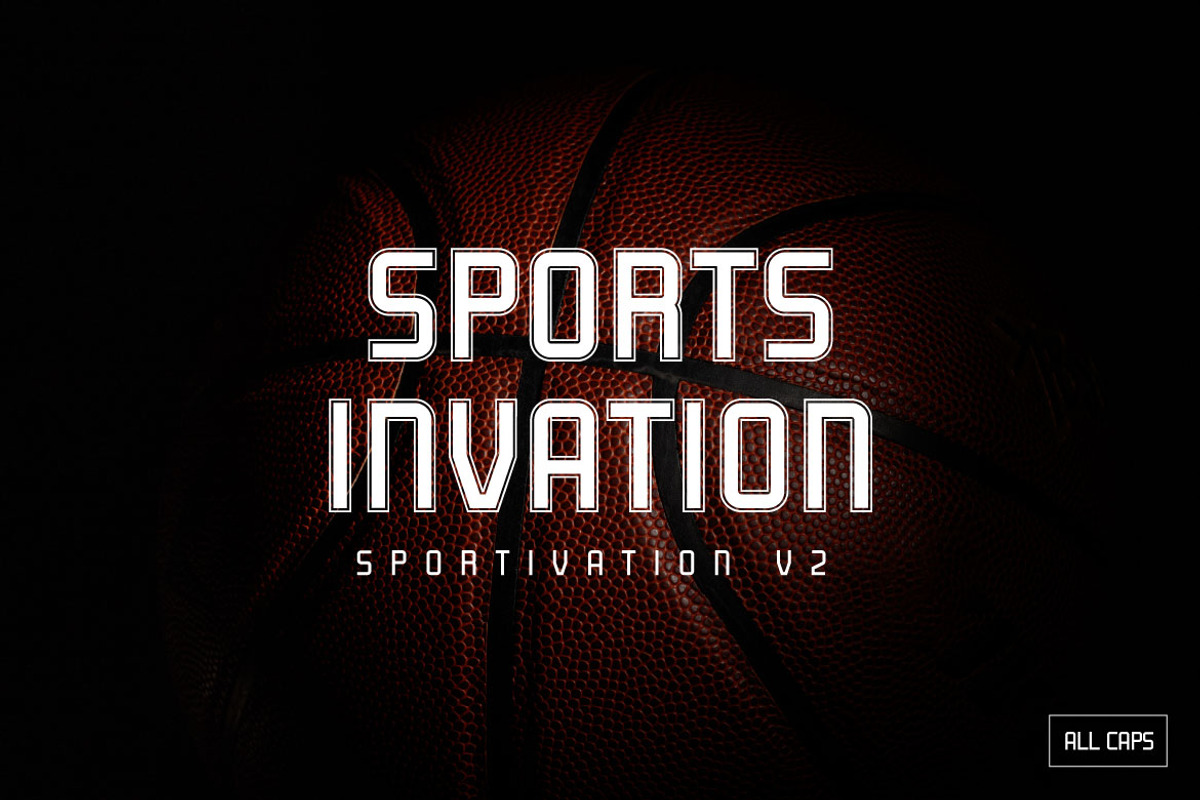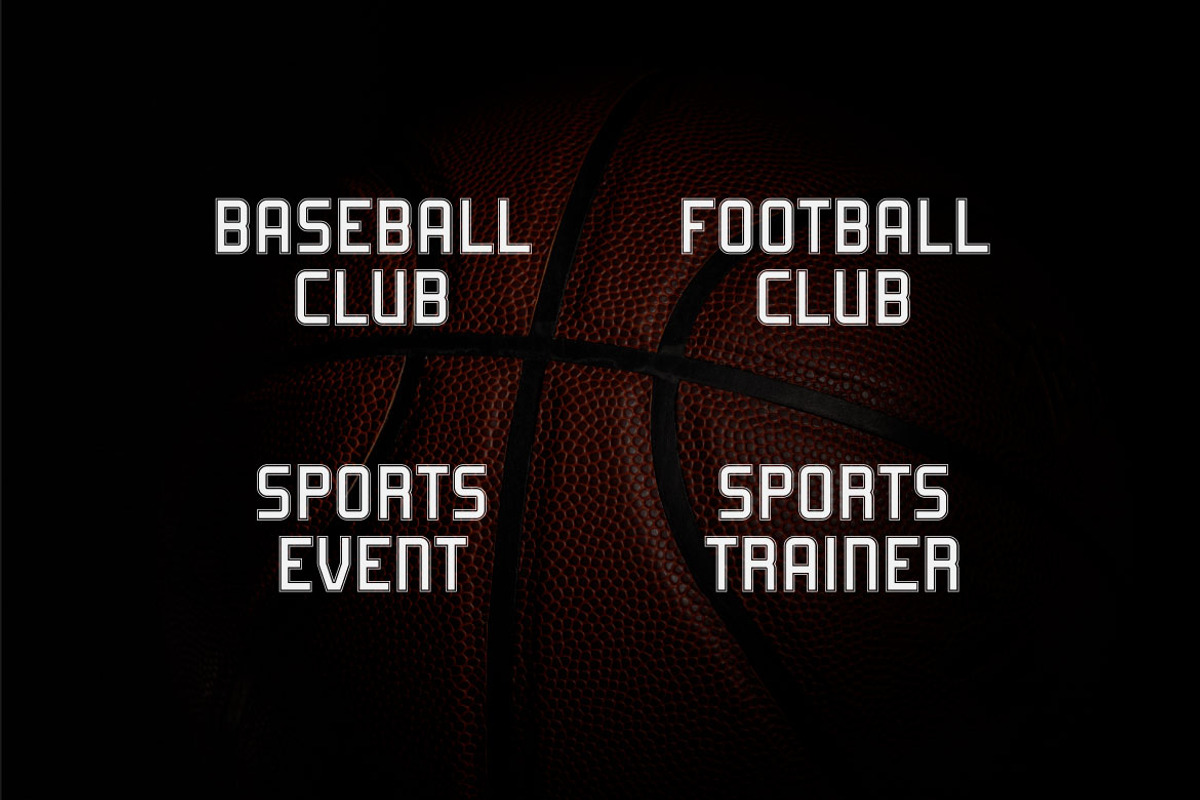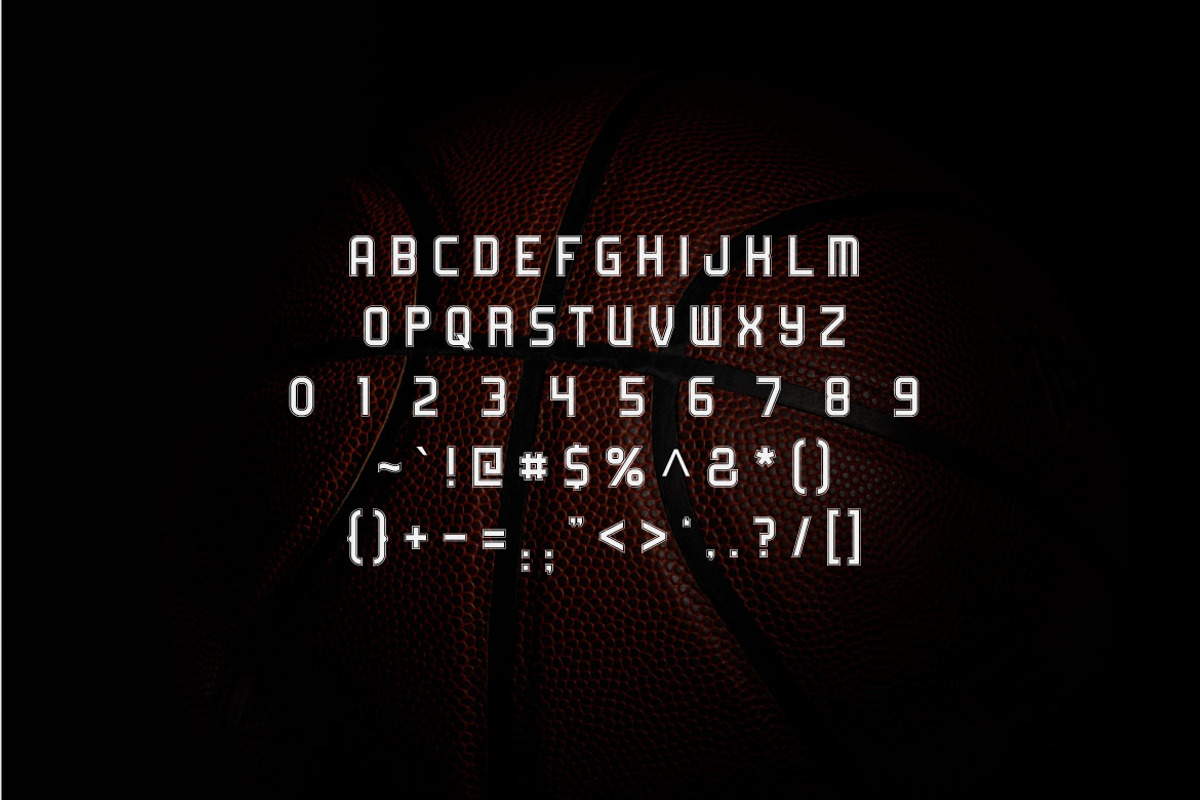
Sports Invation - Sport Gaming Font
Be ready for the invation of SPORTS INVATION, a second versions of Sportivation. The sporty and modern look of the font is perfectly suit in the sport business, such as in the title of a sport magazine, headline, sport wear business, newspaper, poster, book cover, logo, banner, also it can be used in large-scale artwork.